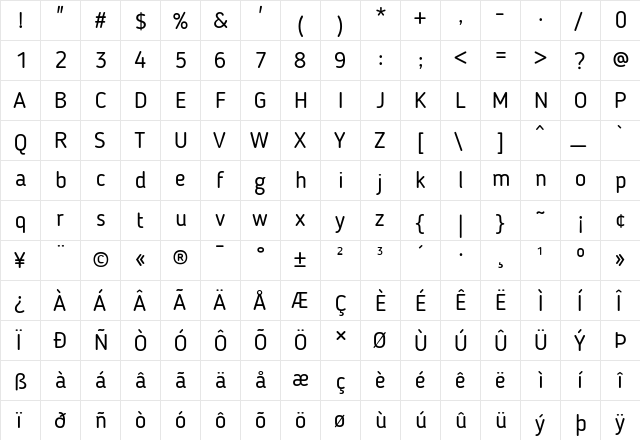
Blogger Sans Regular
| Foundry | Sergiy S. Tkachenko |
| Designer | Sergiy S. Tkachenko |
Design Context for Blogger Sans Typeface
Blogger Sans is a composed and adaptable typeface that performs quietly and consistently across a wide range of design contexts.